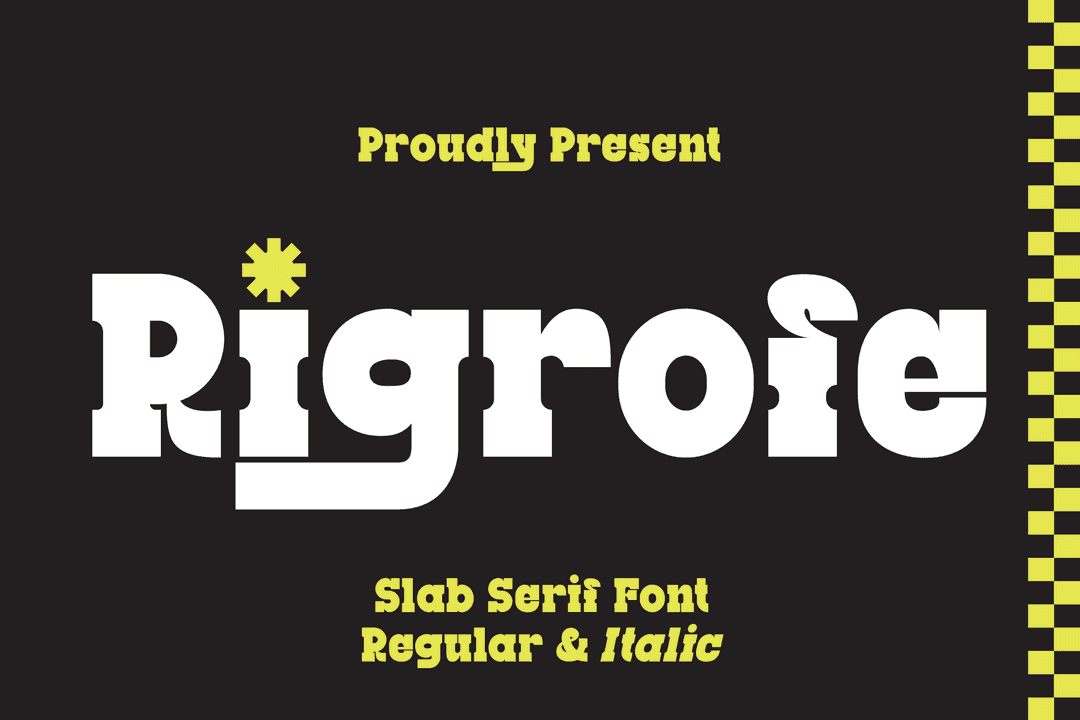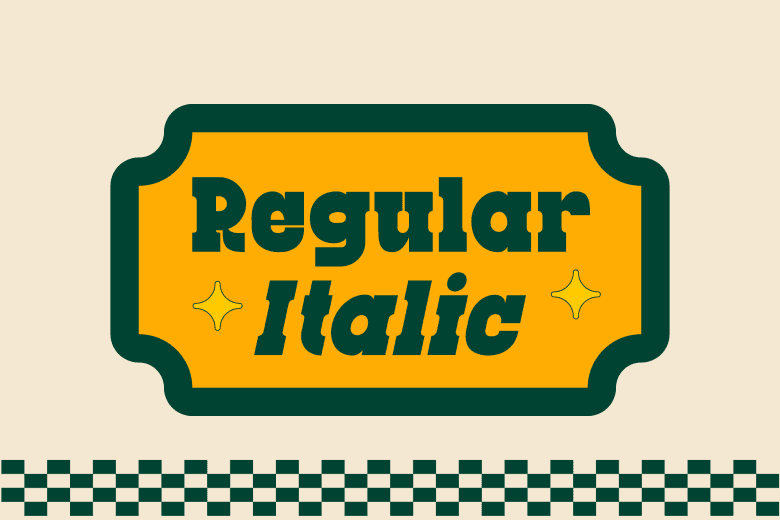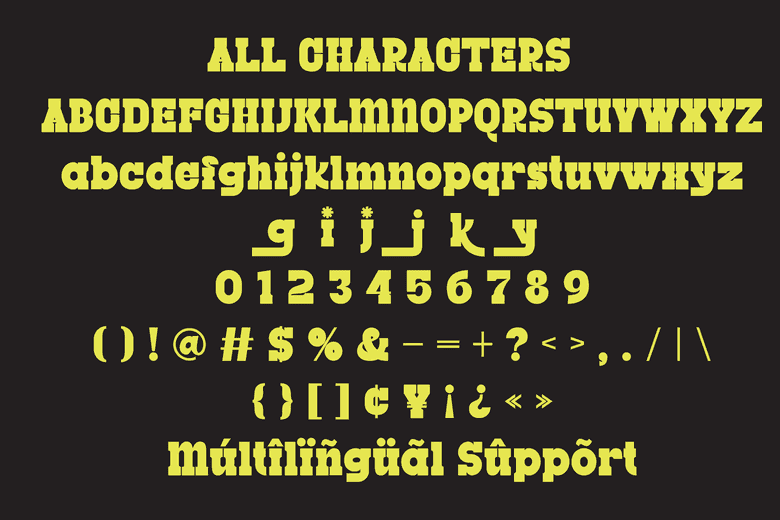
Rigrofe can be described as an retro slab serif font designed to add a sense of nostalgia into any design. With its fun and playful style, this font is great for branding logos invitations stationery wedding designs social media posts as well as many more purposes. Rigrofe brings out the fashion in any design with ease allowing it to help bring them alive.